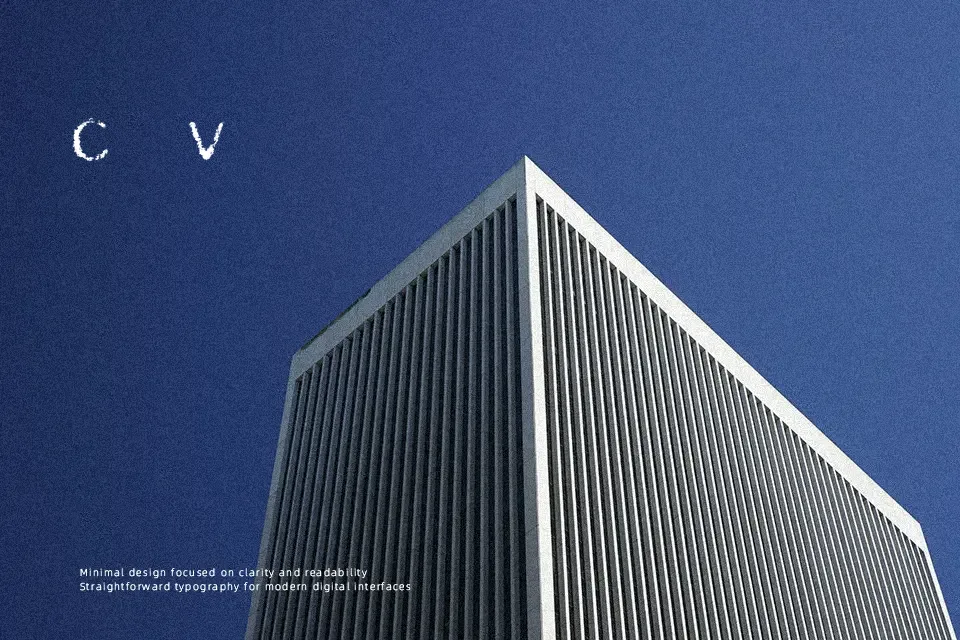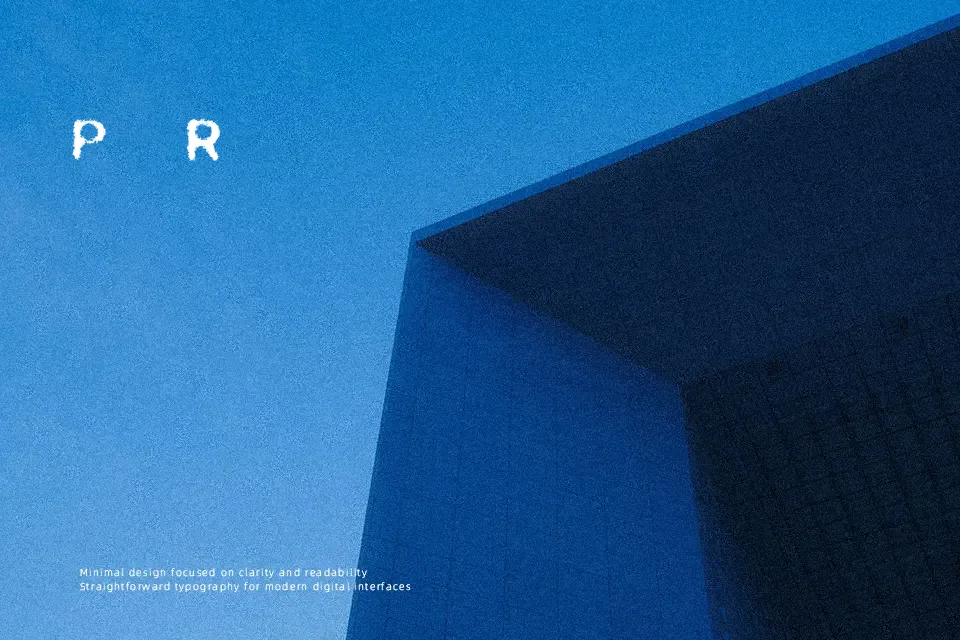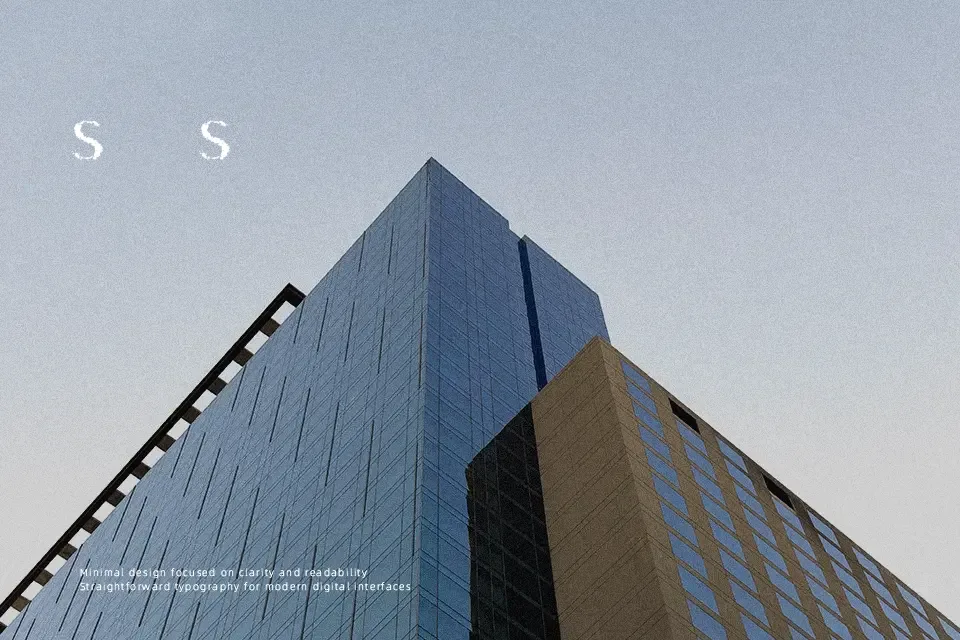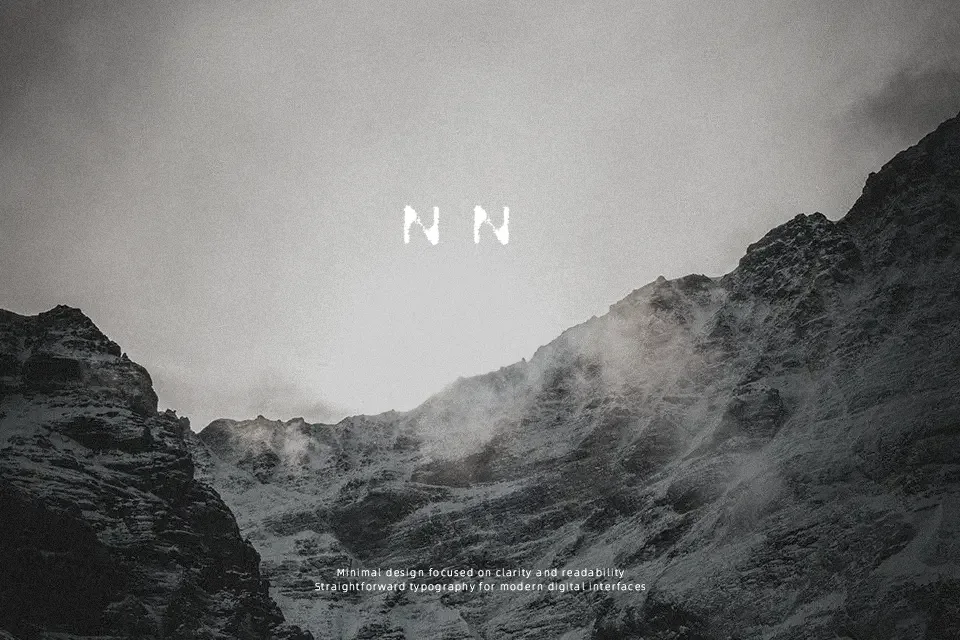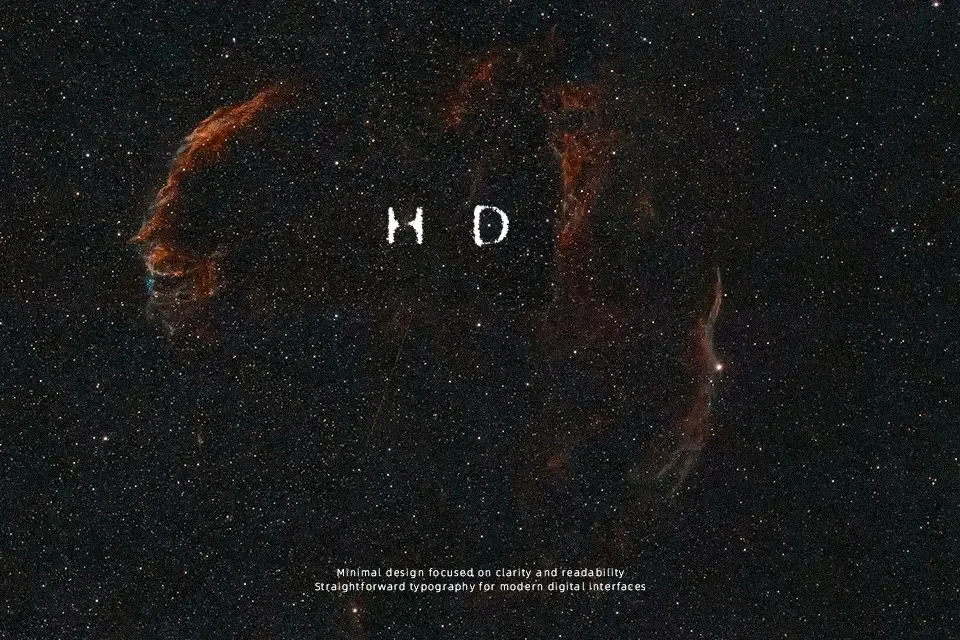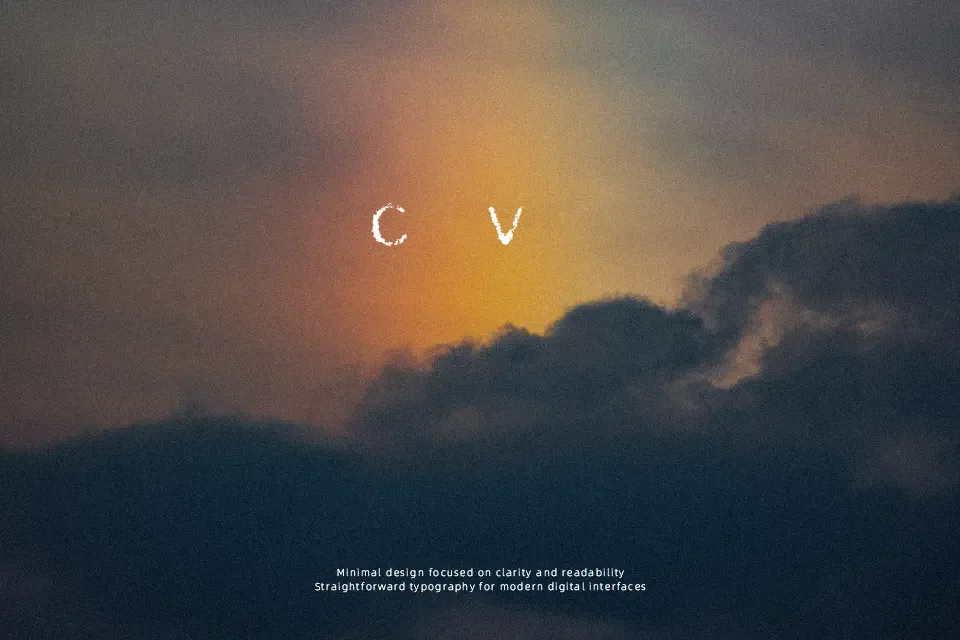
Trash Font
Designed by Saji Johnny Kundukulam
Trash Font establishes a raw visual presence through heavily eroded letterforms characterized by fractured edges, splattered ink-like silhouettes, and rugged solid strokes. The irregular contours and distressed fills create a tactile rhythm that sustains high visual impact in large display applications. Proportions remain relatively uniform with low stroke contrast, while compact letter spacing helps preserve headline cohesion. In practical application, the typeface communicates a dark, abrasive atmosphere ideal for heavy metal band logos, horror movie titles, and apparel graphics. However, the heavy erosion severely impairs legibility at reduced scales, making the letterforms ineffective for continuous text or fine interface labels.
Best For: music festival posters, horror movie titles, streetwear apparel graphics
Not Ideal For: continuous body text, dense editorial layouts, small interface labels
Perfect for film, gaming, and headline, with a dark and decorative style.